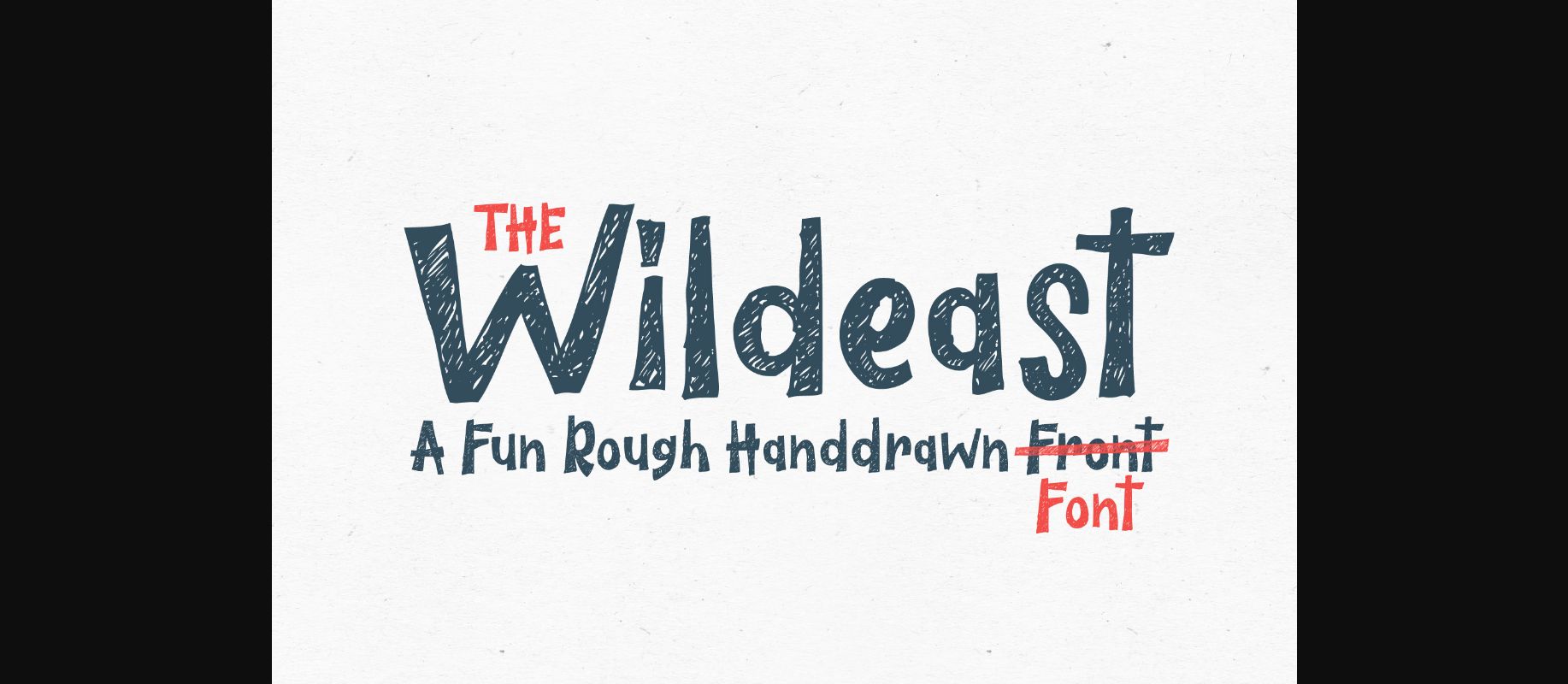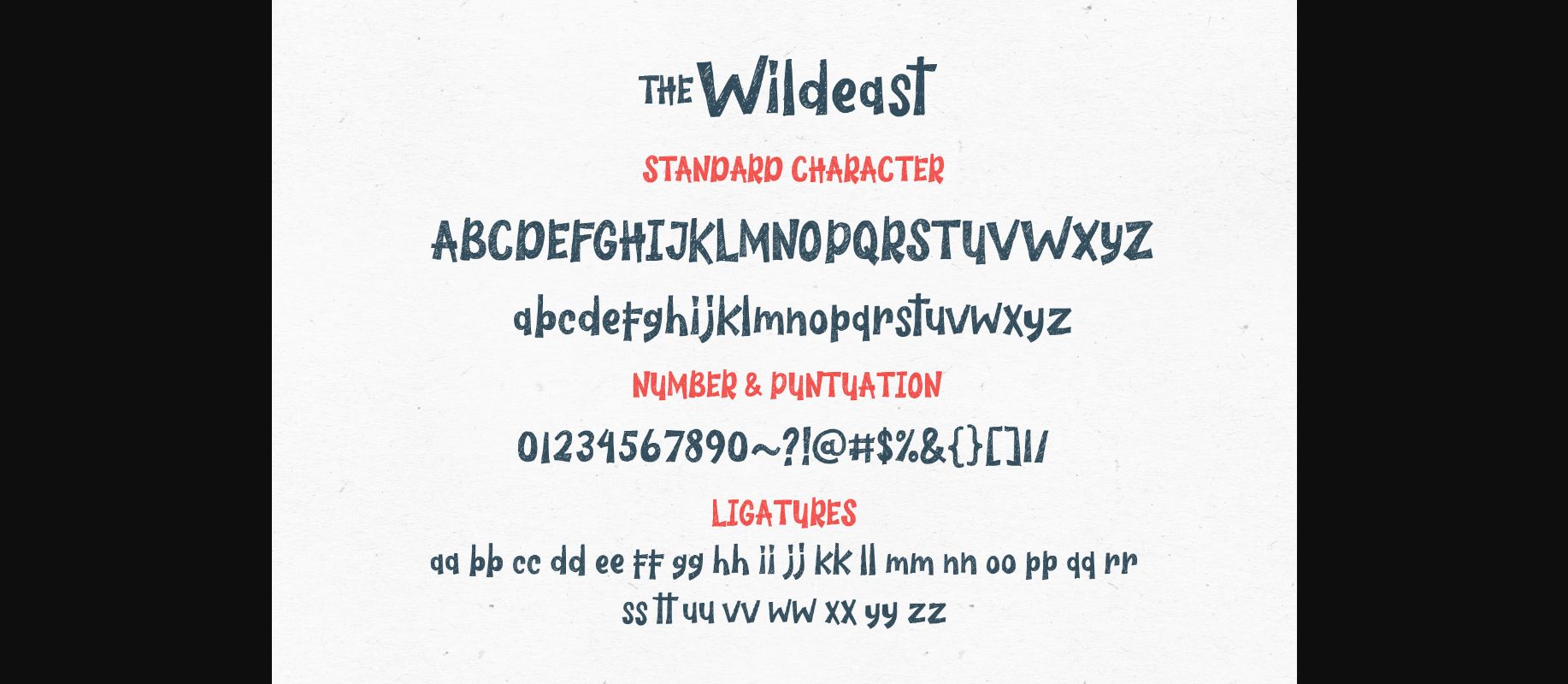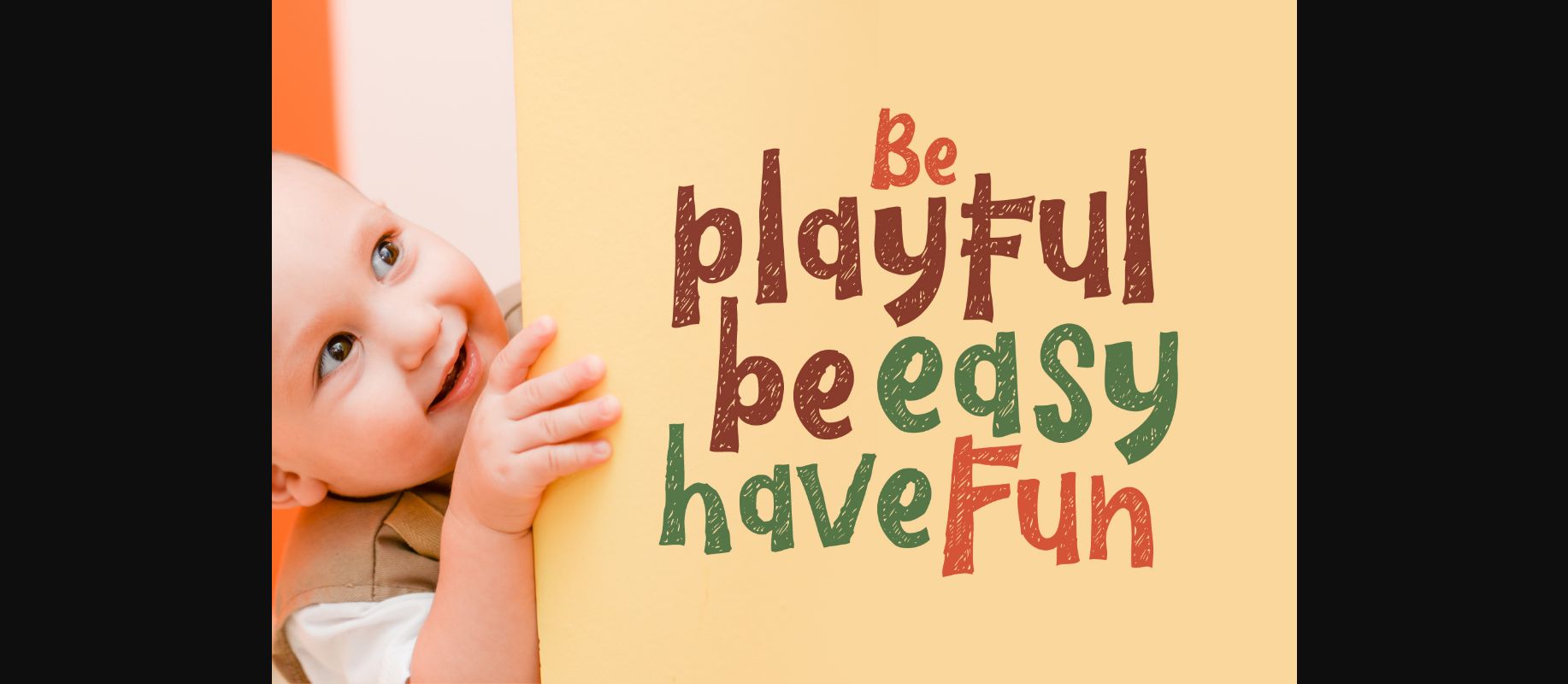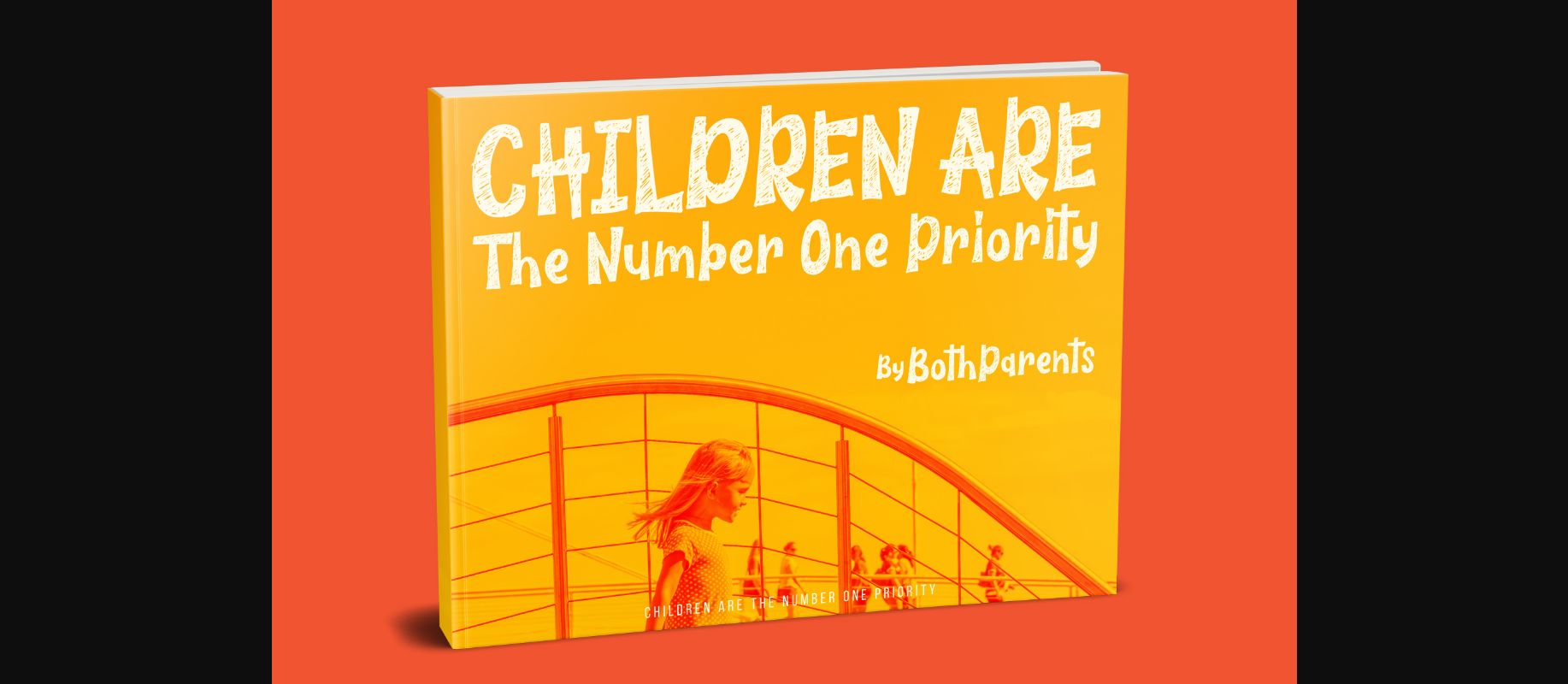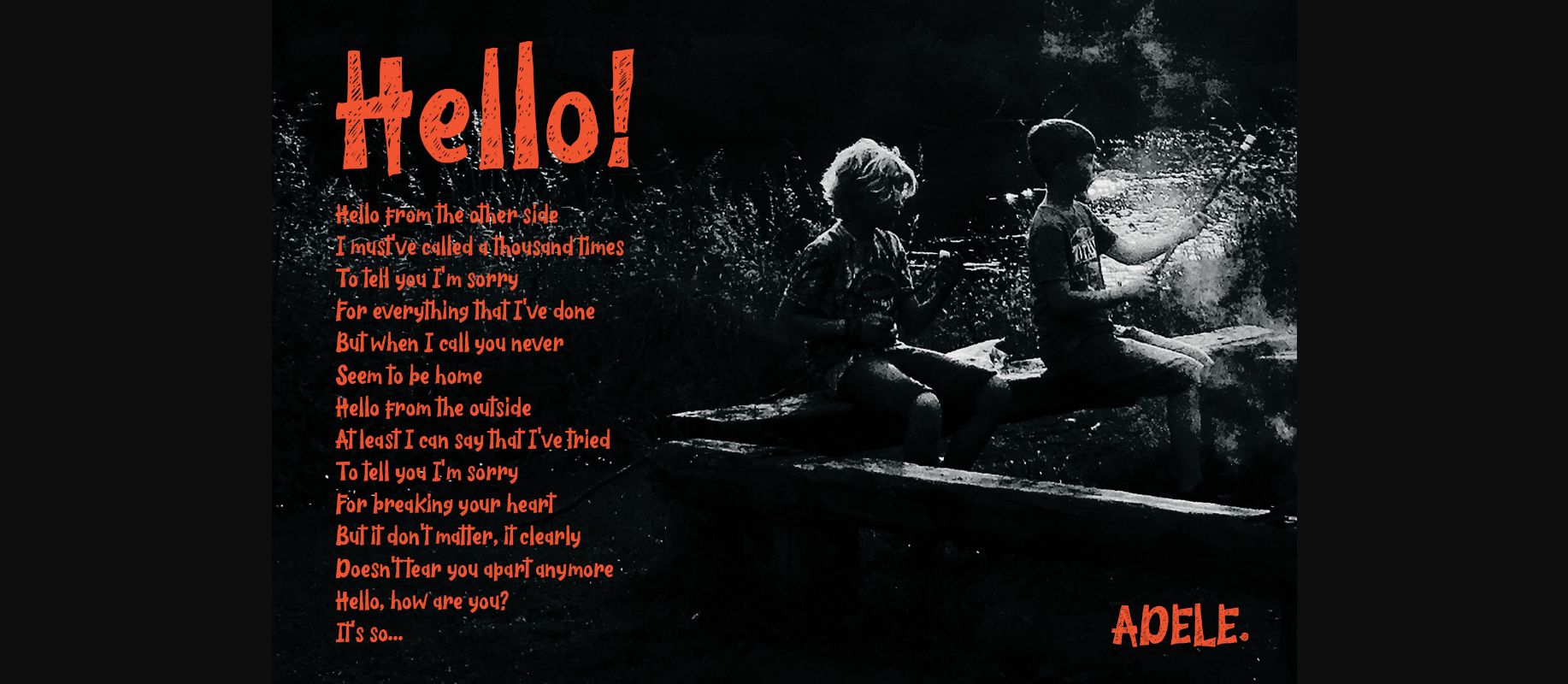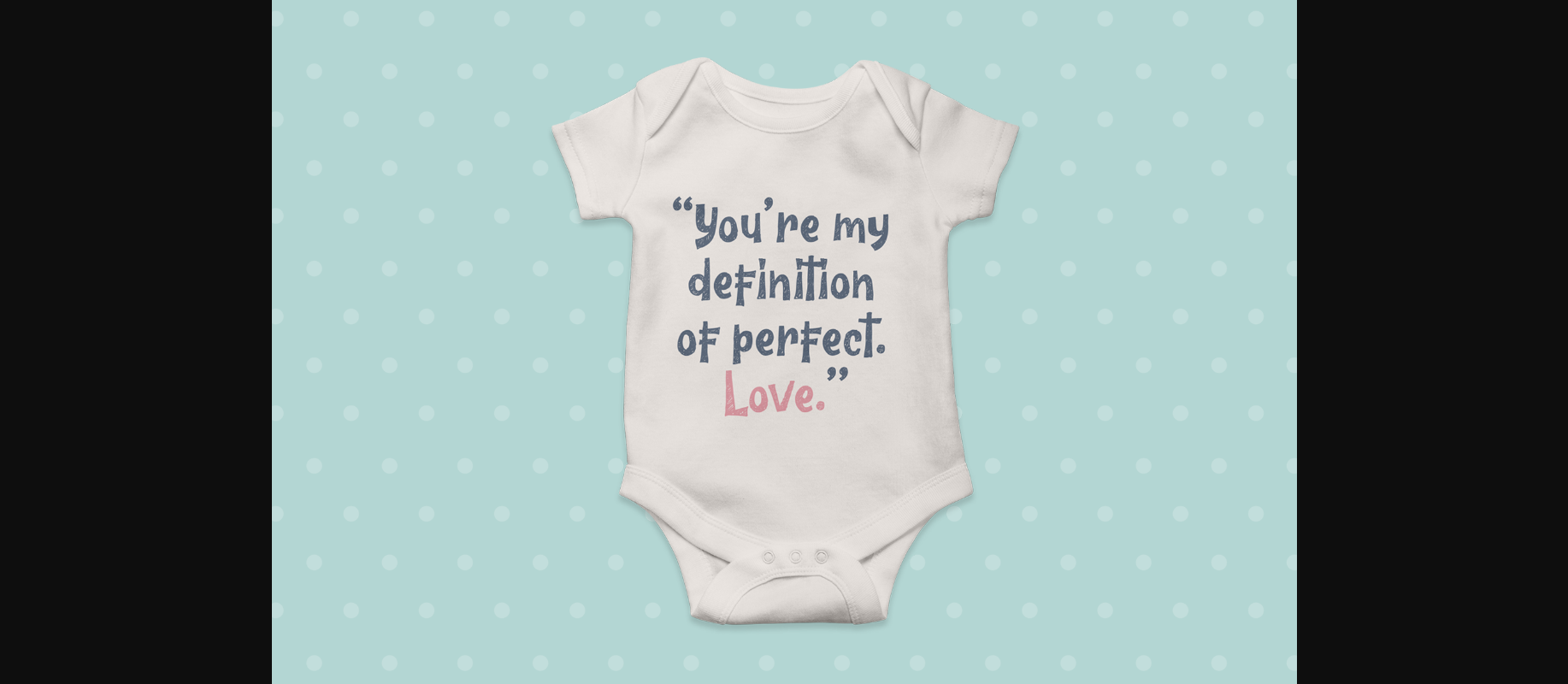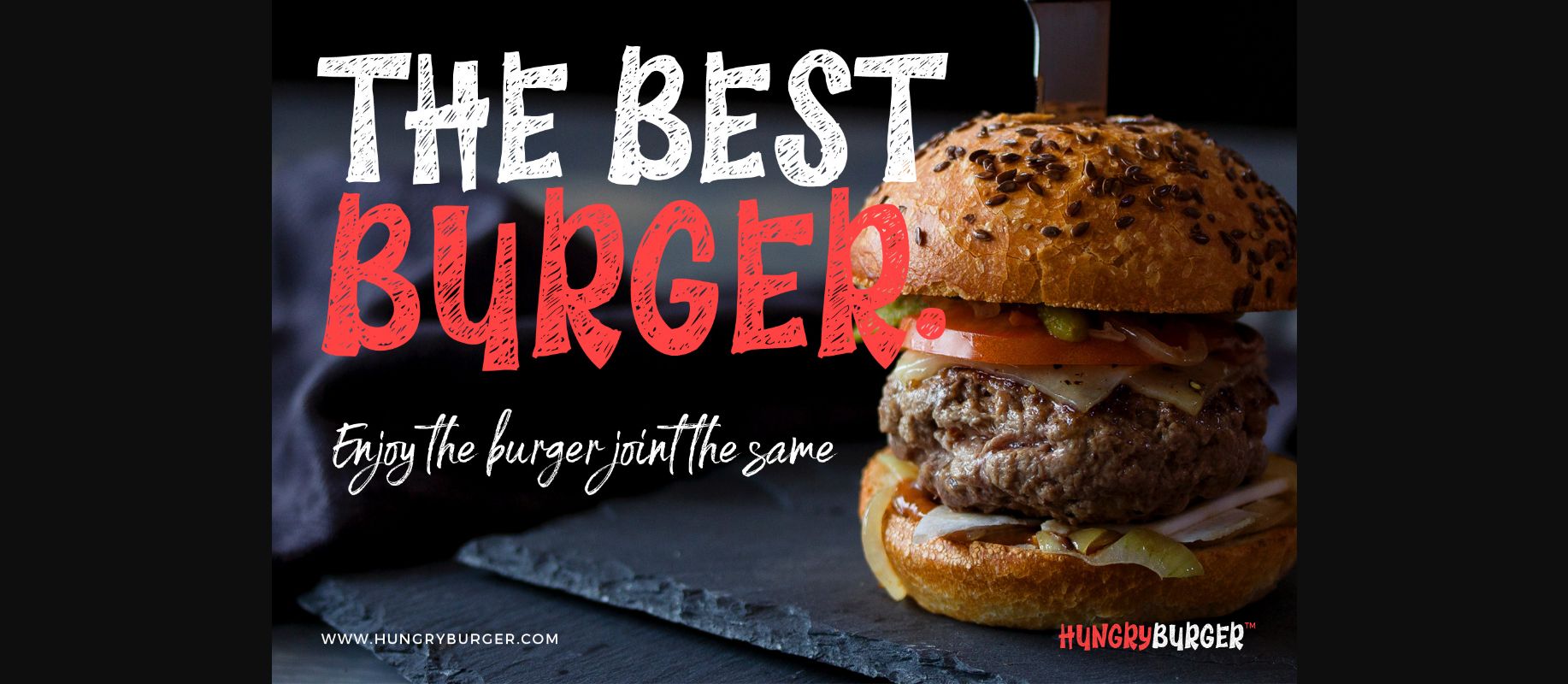
The Wildeast Font
About The Wildeast Font
The Wildeast is a fun, rough hand drawn font. It has a natural and dynamic style that makes it perfect for branding, posters, book covers, clothing designs, flyers, merchandise, packaging, quotes, fashion campaigns, logos, movies, album covers, and much more!